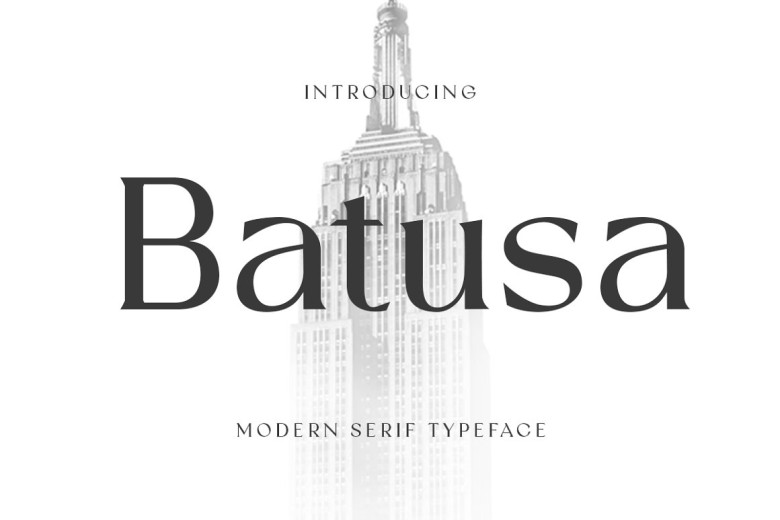
Batusa Font
Batusa is a contemporary serif typeface developed specifically for high-resolution displays and print media. Batusa lends a user a delightful and severely captivating appearance. Whether it is for headline text, corporate branding, or any other design where some simple sophistication is required.
Batusa Modern Serif Font